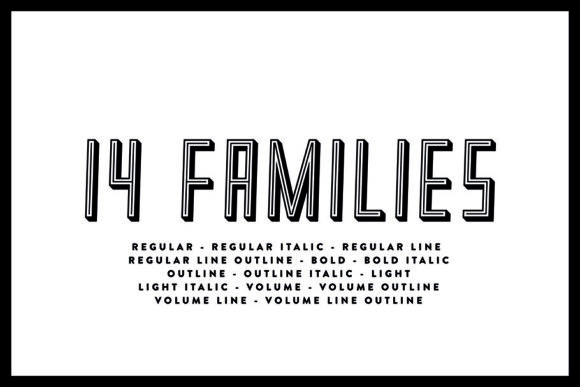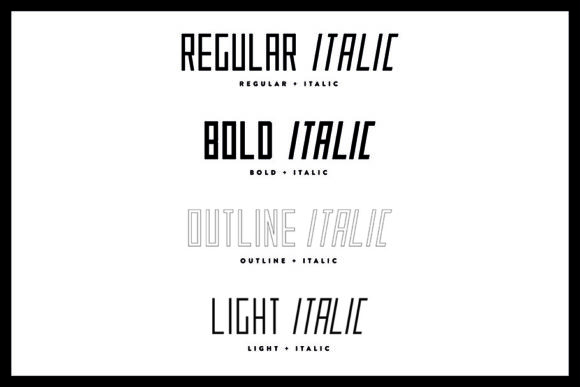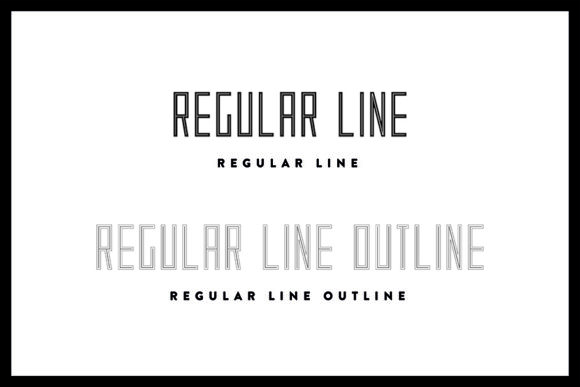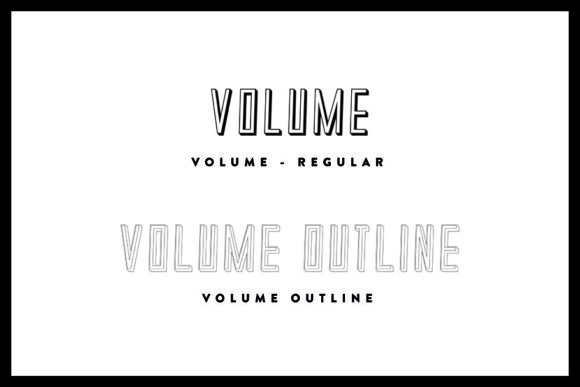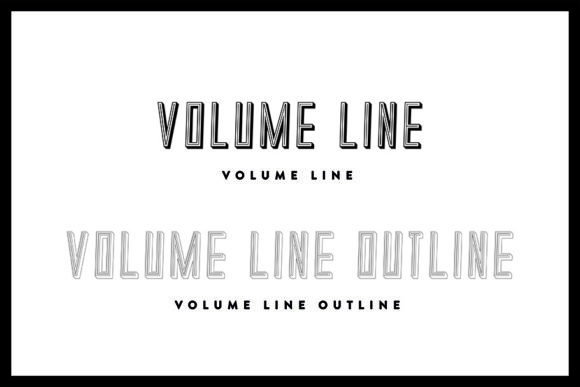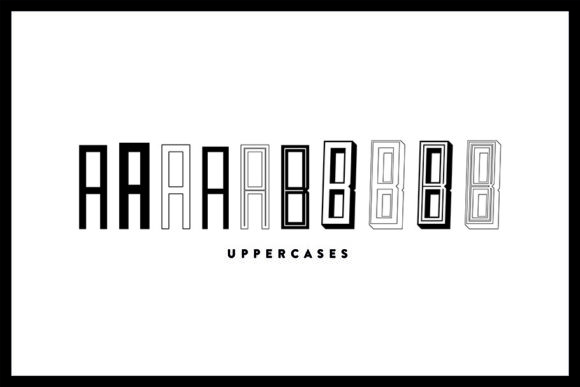
Dino Font: Unleash Your Creativity with this Incredibly Cool 3D Display Font
Are you tired of using the same old fonts in your designs? Look no further! Introducing Dino Font, an incredibly cool, 3D display font that will add a touch of excitement to each of your creations. With its unique and playful style, Dino Font is perfect for designers and crafters who want to make their work stand out from the crowd.
What Makes Dino Font So Special?
Dino Font is more than just a font – it’s an experience. Its 3D display style gives it a bold and eye-catching appearance that’s sure to grab attention. Whether you’re working on a logo, poster, or social media graphic, Dino Font will add a fun and dynamic touch to your design. Plus, with its endless variations, you can experiment with different styles and effects to find the perfect look for your project.
Endless Variations at Your Fingertips
One of the best things about Dino Font is its versatility. With a wide range of variations to choose from, you can customize your text to fit your design perfectly. Want to add some texture or shading to your text? No problem! Want to change the color or adjust the spacing? Easy peasy! The possibilities are endless with Dino Font, and the fun part is experimenting with different combinations to find the one that works best for you.
Dino Font is a dream come true for designers and crafters who want to add a personal touch to their work. Whether you’re creating a logo, branding materials, or social media graphics, Dino Font will help you make a statement. Its unique style is sure to set you apart from the competition, and its ease of use makes it perfect for projects of all sizes.
Tips and Tricks for Getting the Most out of Dino Font
- Experiment with different colors and textures to add depth and interest to your text.
- Use Dino Font in combination with other fonts to create a unique and eye-catching design.
- Don’t be afraid to get creative and try out new and unusual design ideas.
- Use Dino Font to add a playful touch to your designs, or to create a bold and dramatic statement.
Key Features of Dino Font
- Incredibly cool, 3D display font
- Unique and playful style
- Endless variations to choose from
- Perfect for designers and crafters